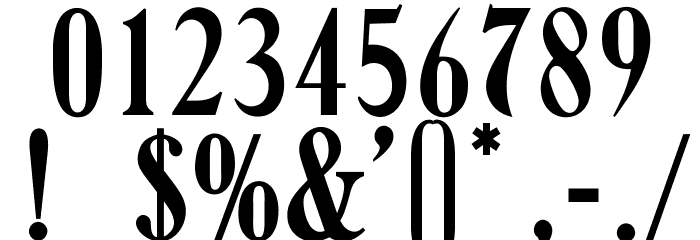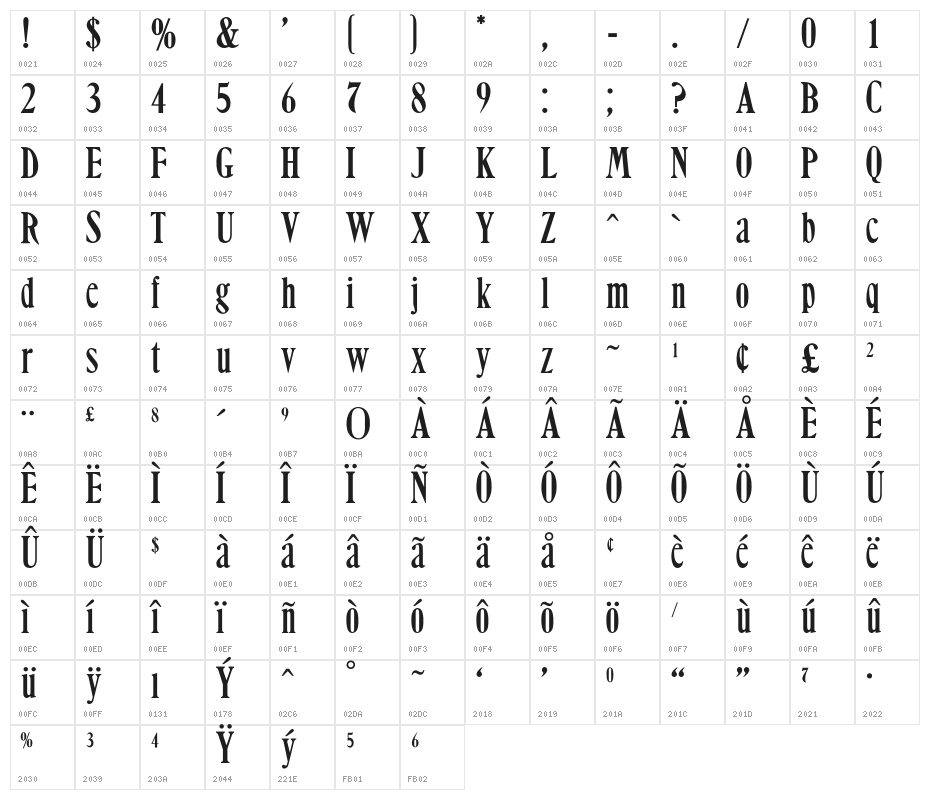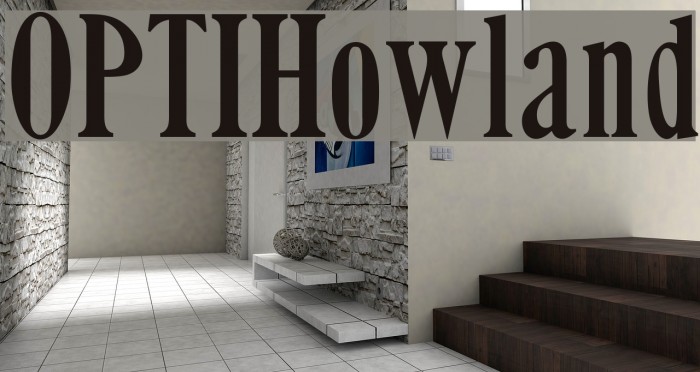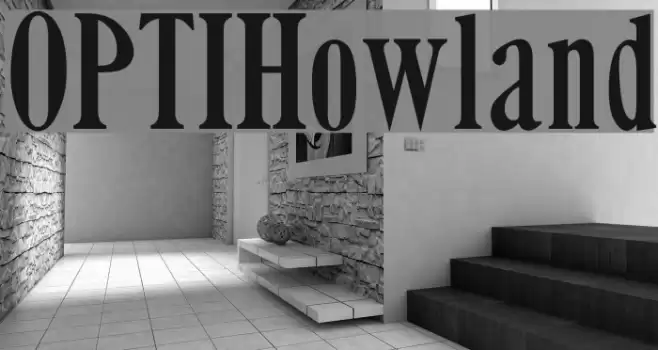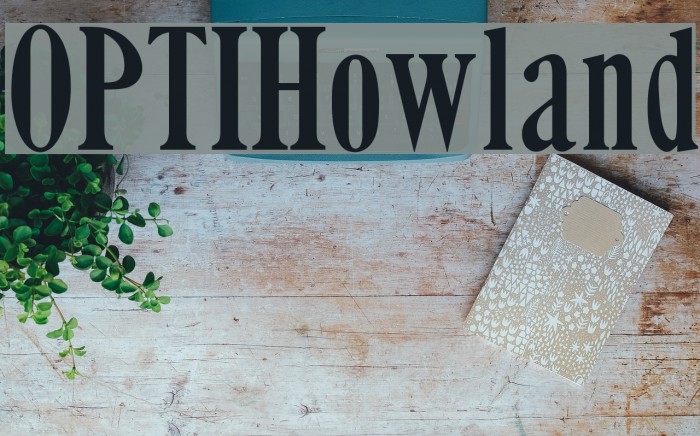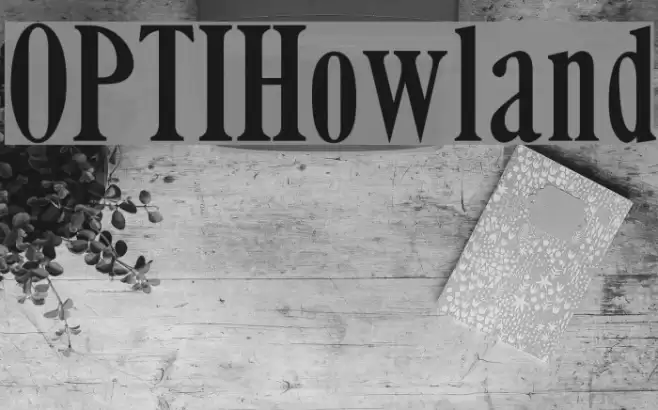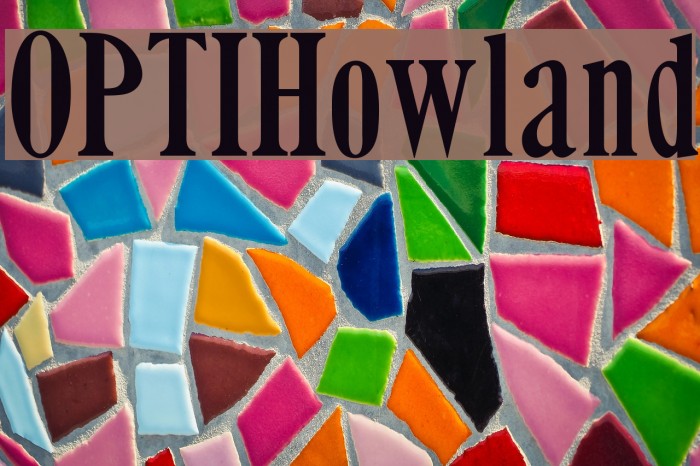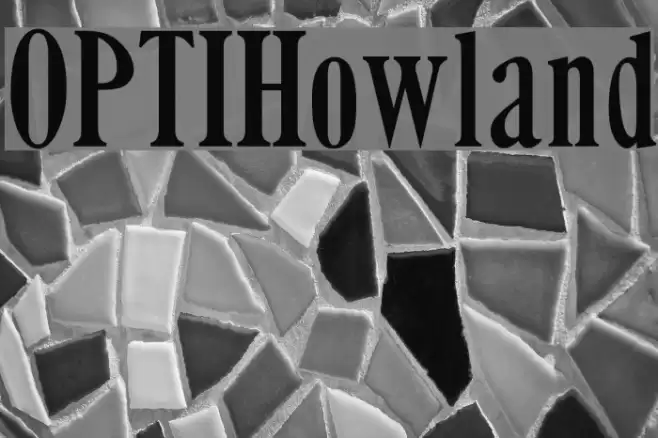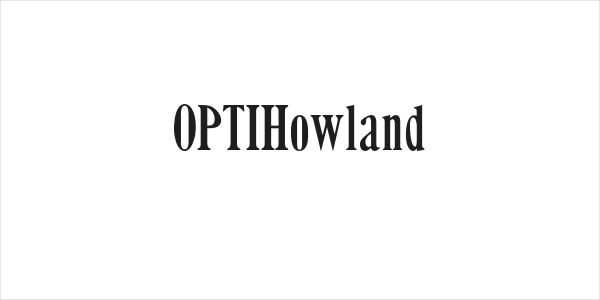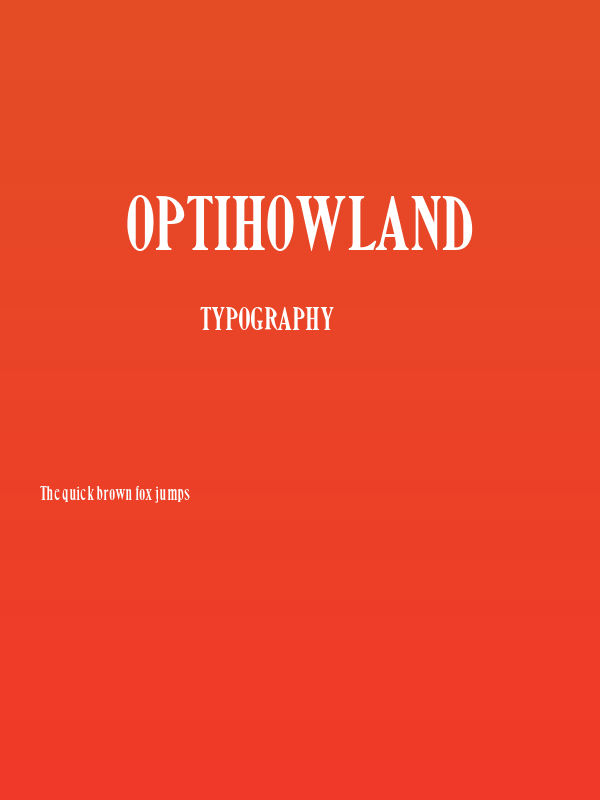
OPTIHowland Font
OPTIHowland Description
This font features a classic serif style with high contrast between thick and thin strokes, giving it a sophisticated and elegant appearance. The serifs are pronounced and slightly curved, adding a touch of traditional flair. The uppercase letters are tall and commanding, while the lowercase letters maintain a consistent height, ensuring readability. The numerals are distinct and well-proportioned, complementing the overall design. Special characters are included, maintaining the font's cohesive style. This font is versatile, suitable for both formal and creative projects.
| Proposed Projects | Ideal for book covers, editorial design, branding, and formal invitations. |